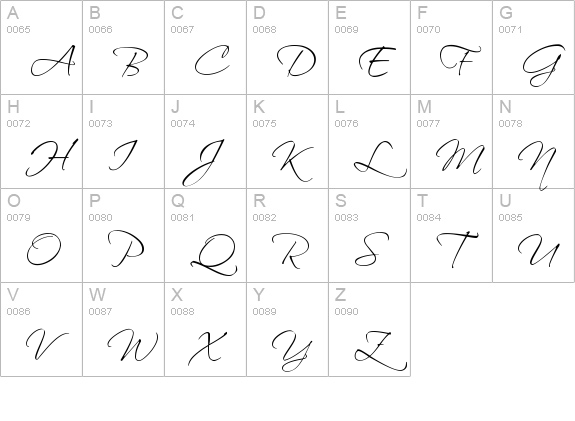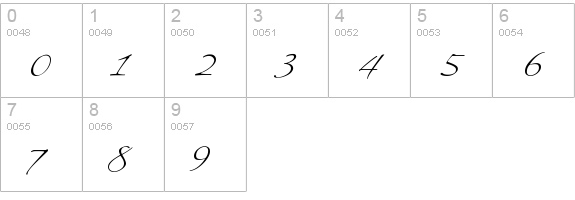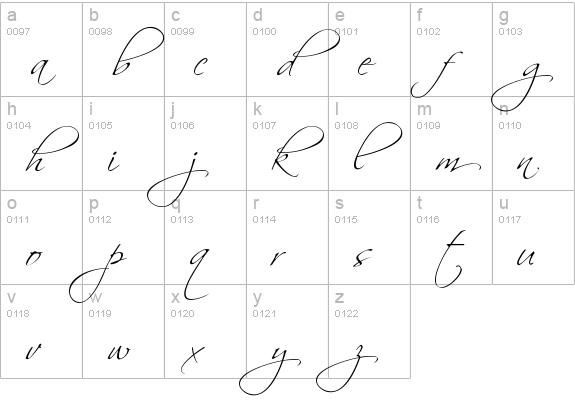
Scriptina Font Details
Scriptina is a stunningly elegant font that exudes grace, fluidity, and sophistication. With its delicate and intricate letterforms, Scriptina adds a touch of timeless beauty to any design project. Whether you're creating wedding invitations, branding materials, or simply want to add a touch of elegance to your personal correspondence, Scriptina is the perfect choice. What makes Scriptina even more remarkable is that it is available for free. Yes, you read that right - this exquisite font can be downloaded at absolutely no cost. Thanks to its generous creators, Scriptina is freely available to download at FontsMarket.com, ensuring that anyone can access its beauty and charm without breaking the bank. With Scriptina, you can effortlessly elevate your designs to new heights. Its sweeping strokes and delicate curves create a sense of movement and grace, making it a truly captivating font. Whether used in headlines, logos, or body text, Scriptina never fails to make a statement. So, why not indulge in the beauty of Scriptina? Download it for free at FontsMarket.com and unlock a world of elegance, sophistication, and creative possibilities. Let Scriptina be your trusted companion in creating designs that leave a lasting impression.